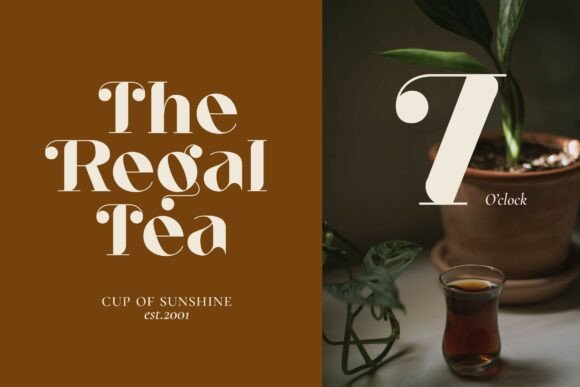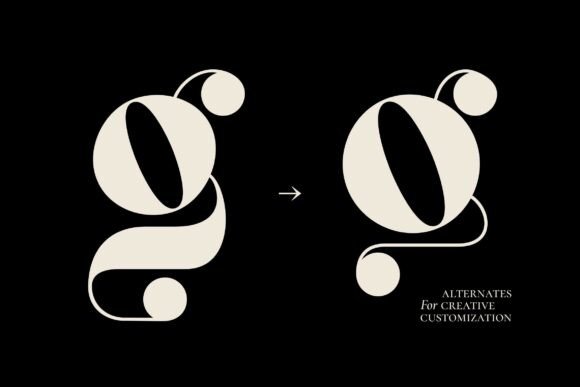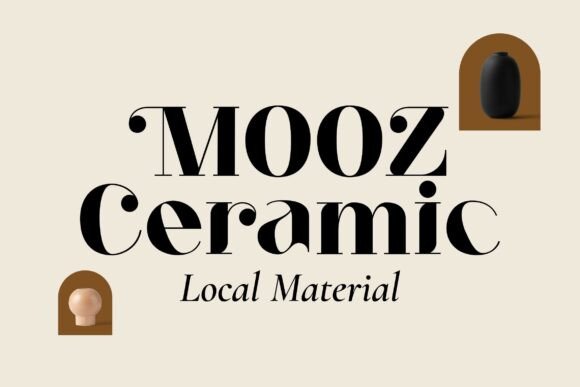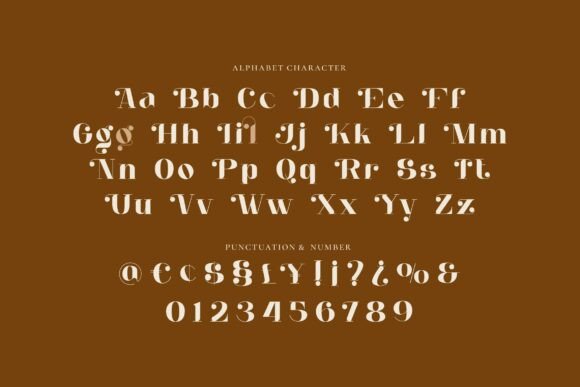
Introducing Bolgek Font: Elevate Your Designs with Sophistication and Elegance
In the world of typography, a font can make or break the aesthetic of a design. For those seeking to infuse their projects with a touch of luxury, sophistication, and artistic flair, Bolgek Font is an exceptional choice. This exquisite serif display font is meticulously crafted to evoke a subtle old-world charm reminiscent of Art Nouveau flourishes, while also incorporating contemporary influences to make it a versatile and modern typeface.
The Distinctive Features of Bolgek Font
Bolgek Font is characterized by its pronounced contrast between thick and thin strokes, which imparts a refined, high-contrast serif appearance. Each character is designed to radiate a sense of grandeur, making Bolgek especially well-suited for headlines, editorial titles, magazines, posters, artistic book covers, logos, and promotional materials. The font’s distinctive swashes and balanced proportions combine elegance and artistic flair, resulting in a typeface that commands attention across both digital and print media.
Ideal for Luxury, Fashion, and Beauty Branding
Bolgek Font is particularly ideal for branding in luxury, fashion, or beauty industries seeking to introduce a touch of dramatic elegance. The font’s sophisticated and refined appearance makes it perfect for creating high-end logos, packaging, and marketing materials that exude exclusivity and refinement. Whether you’re designing for a fashion magazine, a luxury brand, or a beauty product, Bolgek Font is sure to elevate your design to new heights.
Technical Details and Encoding
Versatility Across Digital and Print Media
One of the key benefits of Bolgek Font is its versatility across both digital and print media. The font’s high-contrast serif appearance and elegant swashes make it perfect for use in a variety of applications, from digital headlines and social media graphics to print materials such as magazines, posters, and book covers. Whether you’re designing for a screen or for print, Bolgek Font is sure to make a lasting impression.
Design Inspiration and Artistic Flair
Bolgek Font draws inspiration from the Art Nouveau movement, which is characterized by its use of sinuous, organic lines and flowing curves. The font’s swashes and flourishes add an artistic touch to any design, making it perfect for designers and crafters who seek to add a touch of elegance and sophistication to their work. With Bolgek Font, you can create designs that are truly unique and eye-catching, and that showcase your artistic flair.
Why Choose Bolgek Font?
So why choose Bolgek Font for your next design project? Here are just a few reasons:
- Sophisticated and refined appearance: Bolgek Font’s high-contrast serif appearance and elegant swashes make it perfect for creating luxurious and sophisticated designs.
- Versatility across digital and print media: Bolgek Font is designed to work seamlessly across both digital and print media, making it a versatile choice for any design project.
- Artistic flair: Bolgek Font’s swashes and flourishes add an artistic touch to any design, making it perfect for designers and crafters who seek to add a touch of elegance and sophistication to their work.
In conclusion, Bolgek Font is an exceptional choice for designers and crafters seeking to elevate their designs with sophistication and elegance. With its refined appearance, versatility across digital and print media, and artistic flair, Bolgek Font is sure to make a lasting impression. Whether you’re designing for a luxury brand, a fashion magazine, or a beauty product, Bolgek Font is the perfect choice for any design project that demands the highest level of sophistication and elegance.